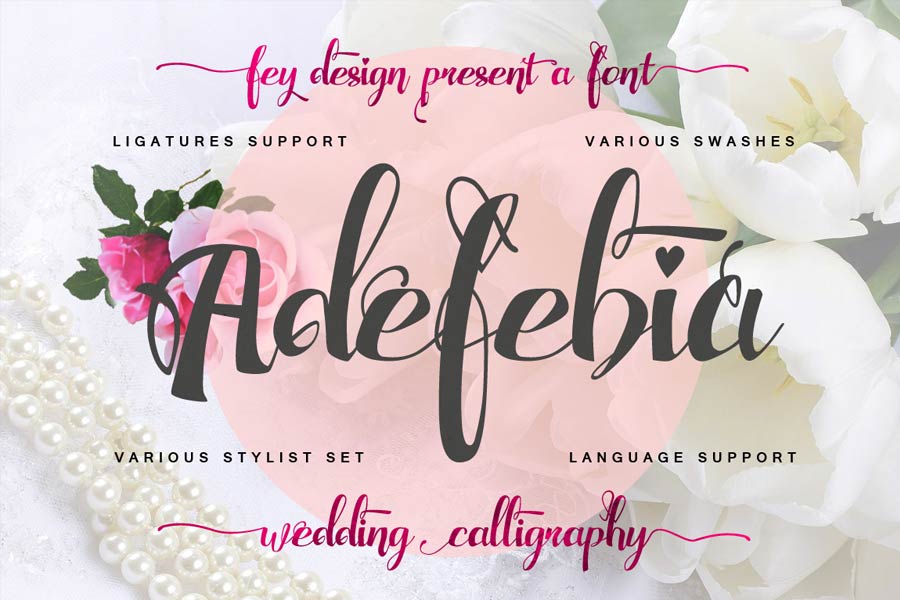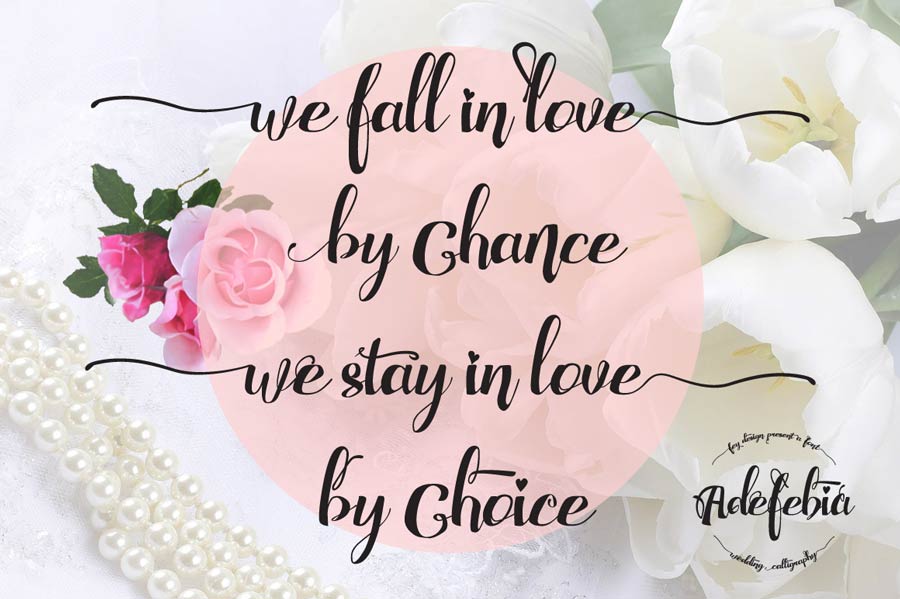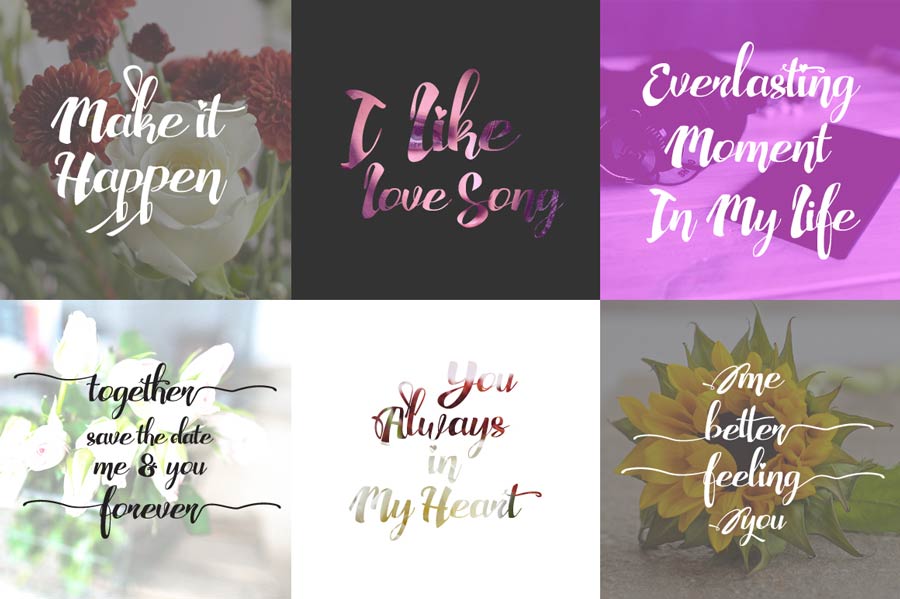
Adefebia is a free calligraphy font where each letters are decorated with swashes. As many other calligraphy fonts, Adefebia is also feminine in style and suitable for design applications for wedding invitation cards, quote posters for beauty, labels and more. The free version has limited glyphs available, you have to buy the full version to get all glyphs.